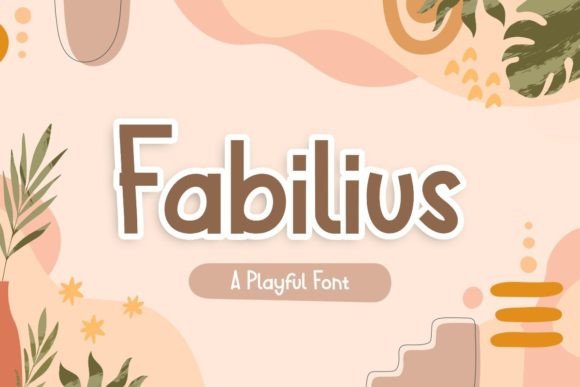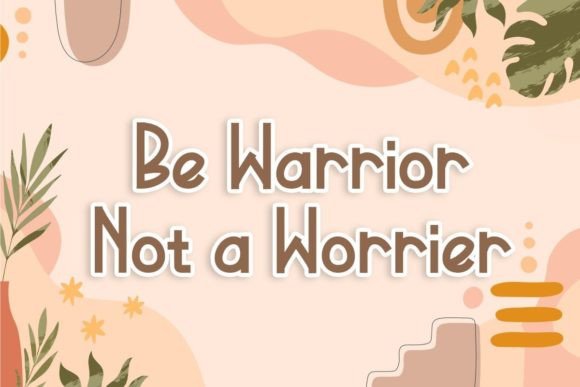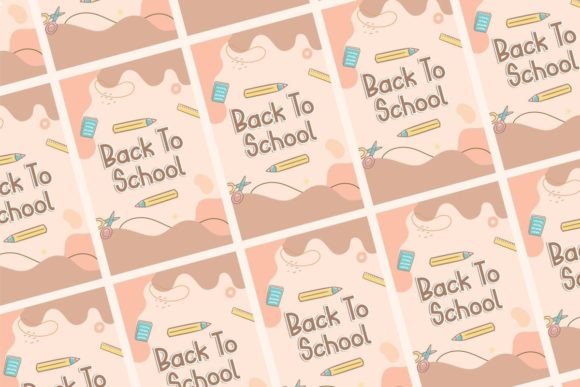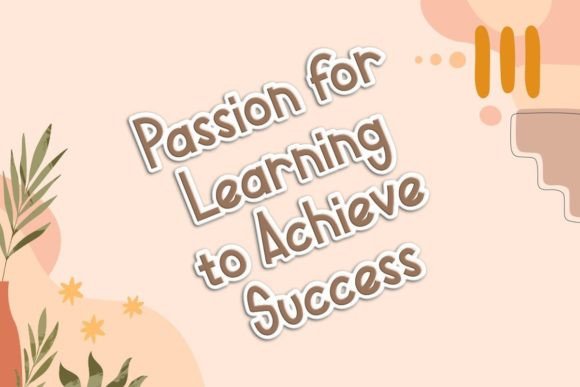
Fabilius Font: A Cute Display Font for Playful Branding & DIY Crafts
About the Fabilius Font
Make a bold statement with Fabilius Font, a powerful and memorable font. Simple and playful. Fabilius is a display font with youthful vibes that you can use for your fine prints such as notebook covers, mugs and much more.
Fabilius excels as a display font for headlines, short taglines, and branding elements where a playful yet sophisticated feel is desired. It’s ideal for projects targeting a young adult or millennial audience, particularly those related to lifestyle, fashion, or entertainment. Avoid using Fabilius for large blocks of body text or UI elements; its playful forms are not optimized for readability in extended passages.
Pairing Fabilius with a clean sans-serif like Open Sans for body copy creates a strong visual hierarchy. For a more playful feel, consider pairing it with a rounded geometric sans-serif. A classic serif like Garamond could offer a sophisticated contrast, grounding the youthful energy of Fabilius.
Its core personality is best described as cheerfully modern and slightly quirky, making it a strong choice for brands that want to convey approachability and a unique identity without sacrificing visual professionalism.